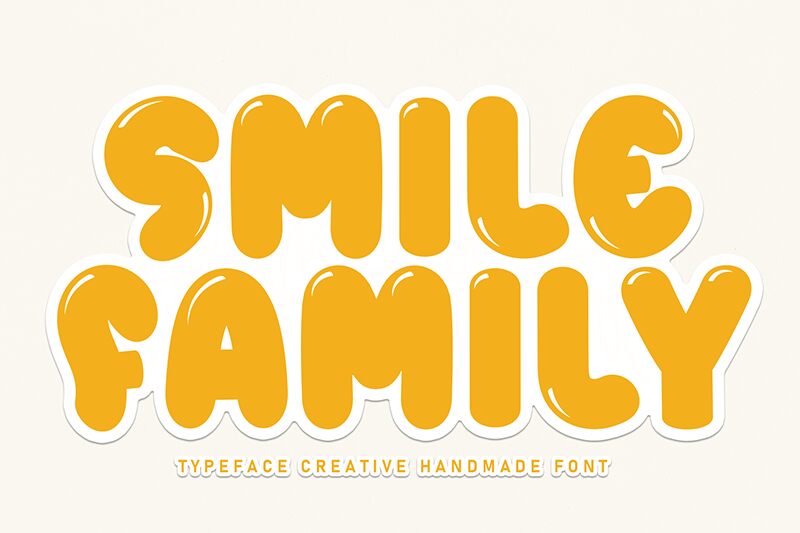
Smile Family
Smile Family font by Scratchones is a cartoon display typeface whose bold all-inclusive characters deliver a sense of uniqueness with every letterform. Its thick glyphs make it impossible to appear in the background, always showing an unbeatable youthful friendliness and enthusiasm. Nothing can beat its versatility when you’re trying to design with a relaxed fun-loving theme.